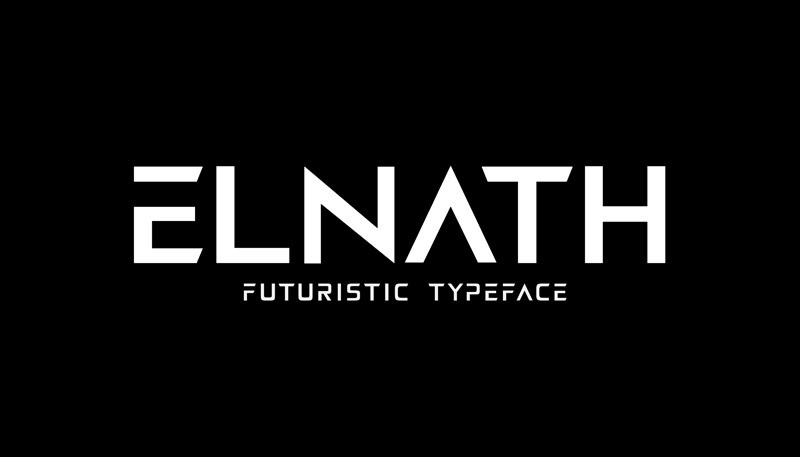
Elnath Display Font, This bundle features strong, confident and powerful typefaces designed to work great with sports logos, club branding, apparel applications, labels and more.